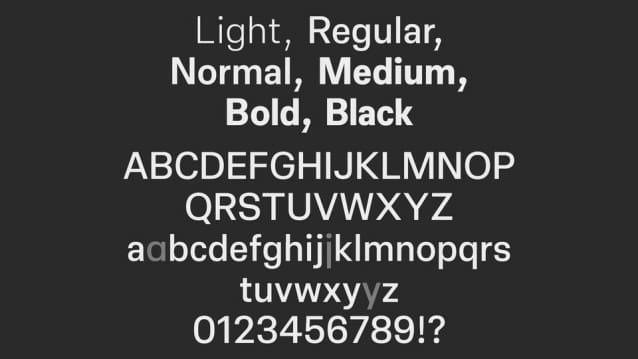
Akt Font Family
Akt Font Family is a versatile neo-grotesque font family that balances timeless simplicity with modern functionality. Its clean, unembellished letterforms exude clarity and professionalism, making it suitable for a wide variety of design applications. With a comprehensive range of weights and matching italics, Akt typeface offers flexibility for both display and text settings.
Designed with precision and attention to detail, Akt font embodies the elegance of the neo-grotesque tradition while incorporating subtle contemporary refinements. Ideal for branding, editorial layouts, digital interfaces, and corporate communications, Akt font delivers a sleek and cohesive visual experience.
Elevate your designs with Akt—a typeface that seamlessly combines classic roots with modern sensibilities.